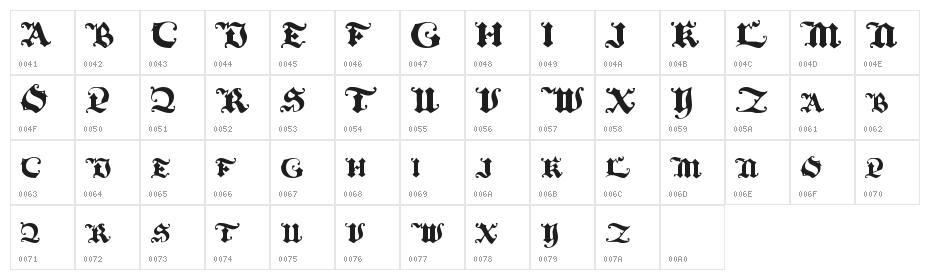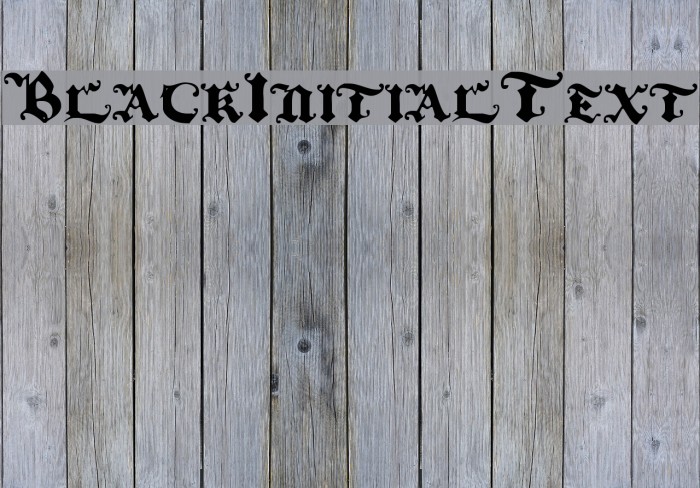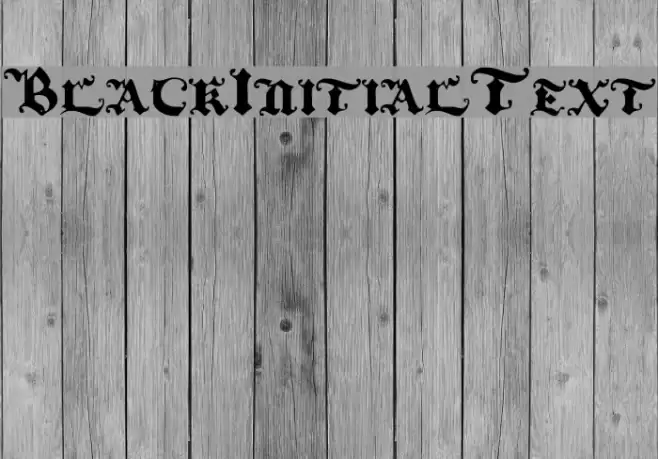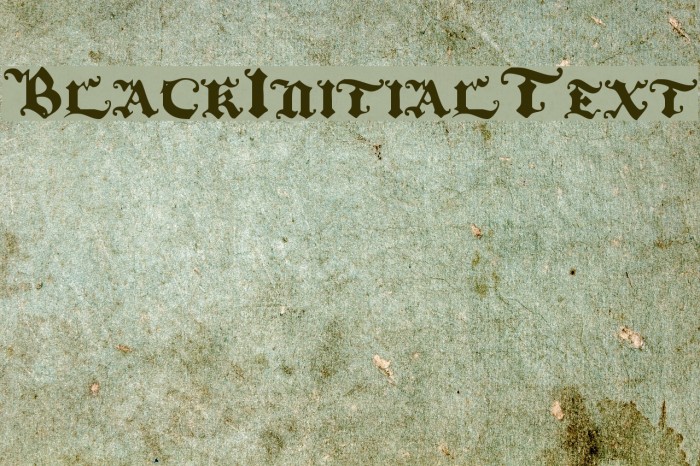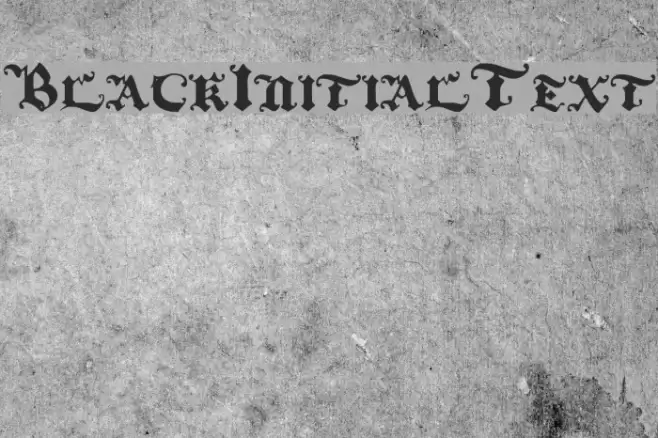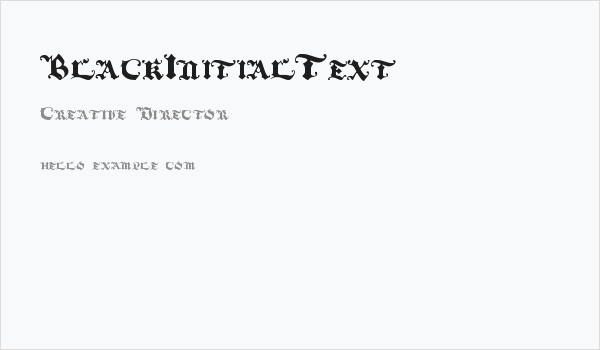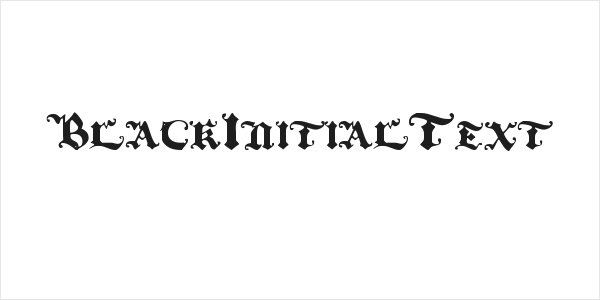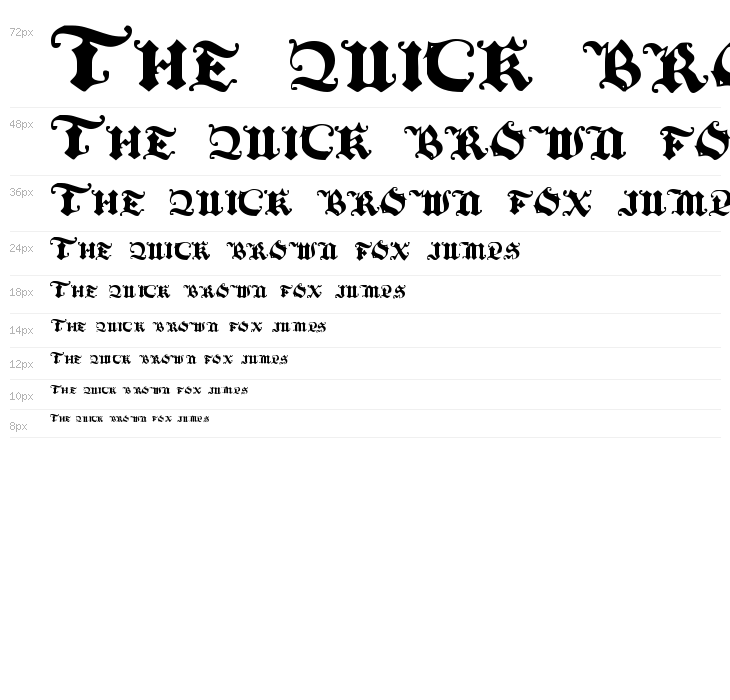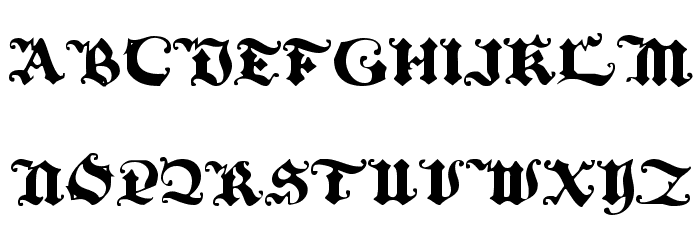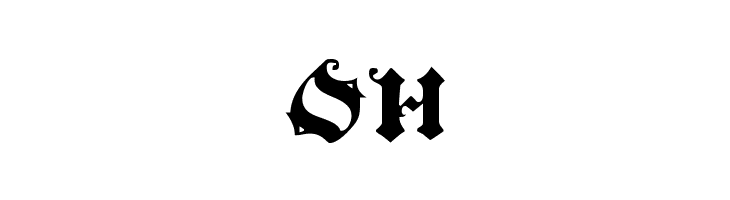
BlackInitialText Font
BlackInitialText Description
This font is a classic example of Blackletter style, characterized by its ornate and intricate design. The letters are bold and dramatic, with sharp angles and elaborate flourishes that give it a medieval and gothic appearance. The uppercase letters are particularly striking, with their strong vertical lines and decorative serifs. The lowercase letters maintain the same level of detail, ensuring consistency throughout the typeface. This font is highly stylized, making it ideal for projects that require a historical or formal aesthetic. Its unique style captures the essence of traditional calligraphy, making it a standout choice for designs that aim to convey elegance and sophistication.
| Proposed Projects | Ideal for certificates, invitations, book covers, and branding that require a historical or formal touch. |